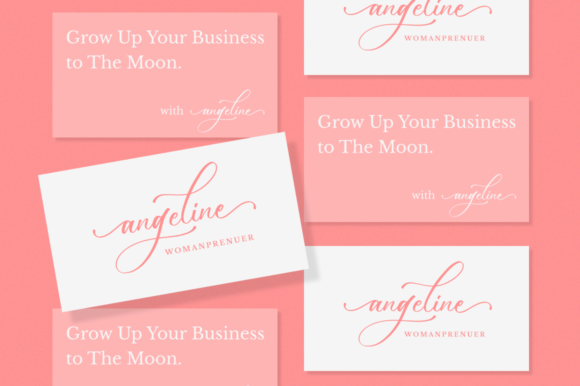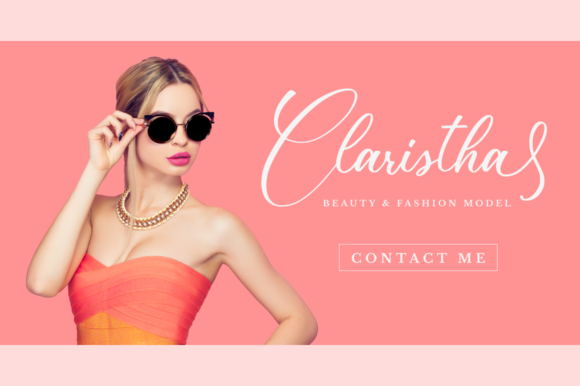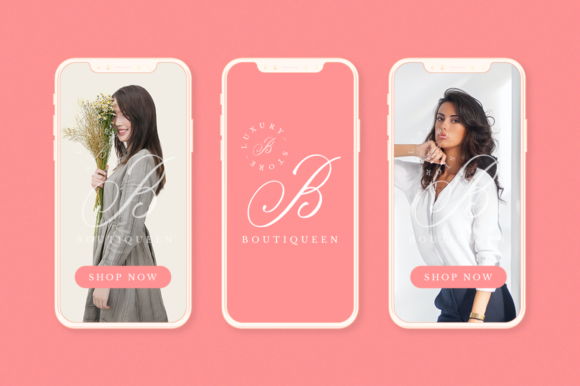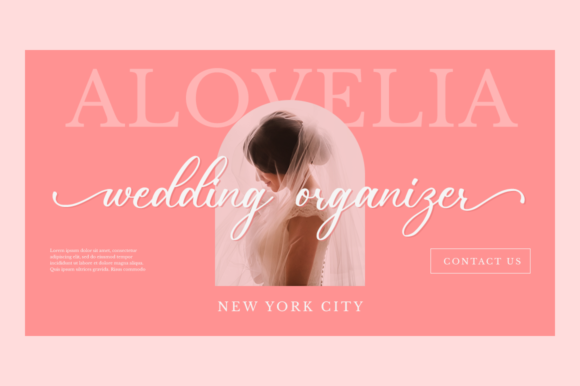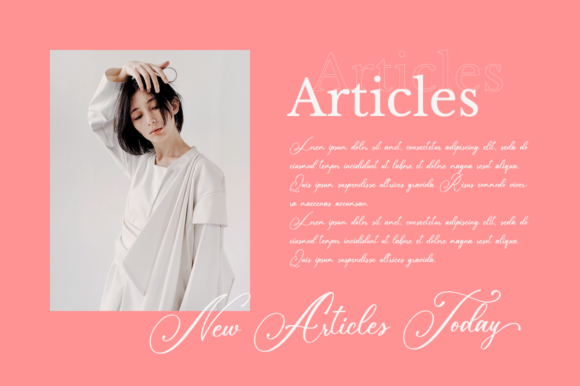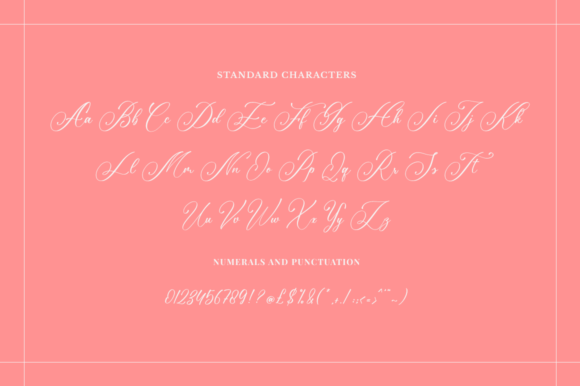
Discover the Elegance of Elsavadyore Font
Have you ever found yourself scrolling through design inspiration boards, searching for that perfect font to elevate your next project? You know, that moment when you stumble upon a beautiful script that makes your heart skip a beat? For designers, finding the right font can be a game-changer, and I’m excited to introduce you to one that’s sure to impress.
Meet Elsavadyore Font, a lovely and delicate script font that exudes elegance and class. Whether you’re working on a wedding invitation, a luxury brand’s marketing materials, or a romantic novel’s cover, Elsavadyore Font is the perfect choice to add a touch of sophistication and refinement. With its PUA encoding, accessing all the amazing glyphs and ligatures is a breeze, giving you the freedom to create stunning designs with ease.
Elsavadyore Font Key Features
- Unique Characteristics: Elsavadyore is a unique, handwritten script font designed to evoke a sense of elegance and sophistication. Its fluid connections and subtle flourishes make it perfect for creating eye-catching titles and headings.
Elsavadyore Font Review
I recently had the chance to work with the Elsavadyore Font, and I must say it’s a mixed bag. ✨ The font’s unique, cursive design is certainly eye-catching, and it works well in contexts where you want to add a touch of elegance and sophistication. I particularly liked its ability to add a sense of whimsy to headings and titles.
Here are some of the font’s strengths:
- ✨ Elegant and sophisticated design
- ✨ Whimsical feel that’s perfect for creative projects
- ✨ Good legibility, even at smaller font sizes
However, there are some limitations to keep in mind:
- ⚠️ Limited character set, which can make it difficult to use in certain languages or contexts
- ⚠️ Not ideal for body text, as it can be difficult to read at length
- ⚠️ May not be suitable for digital use, as it can appear blurry or pixelated
Overall, I would say that the Elsavadyore Font is a solid choice for specific projects where its unique design is a good fit. However, it may not be the best choice for more general use or for projects where readability is a top priority.
Tips for Getting the Most Out of Elsavadyore Font
Use the Elsavadyore font to add a touch of elegance and sophistication to your designs.
Pair it with bold fonts to create contrast and visual interest.
Experiment with different font sizes and colors to find the perfect combination for your project.
The Elsavadyore font is perfect for:
Business cards and brochures
Editorial and magazine designs